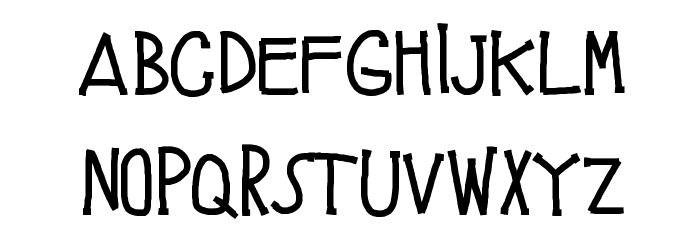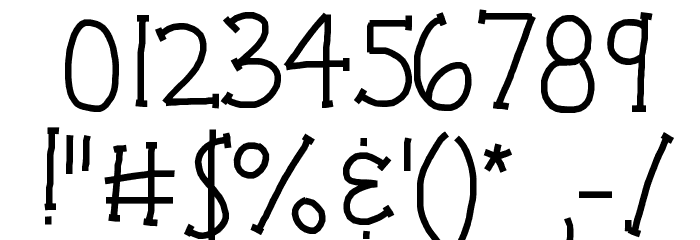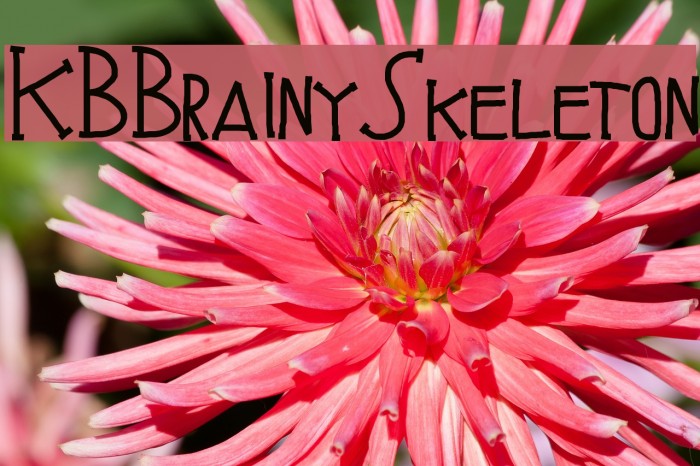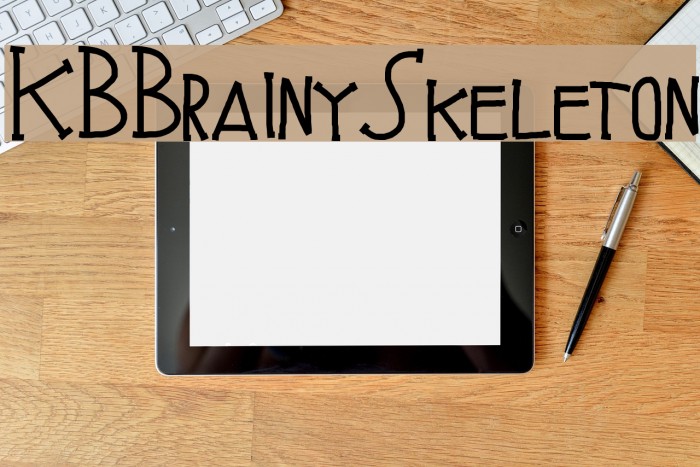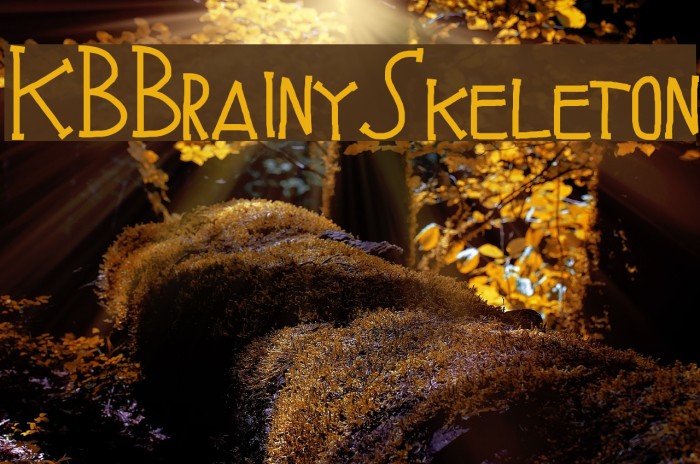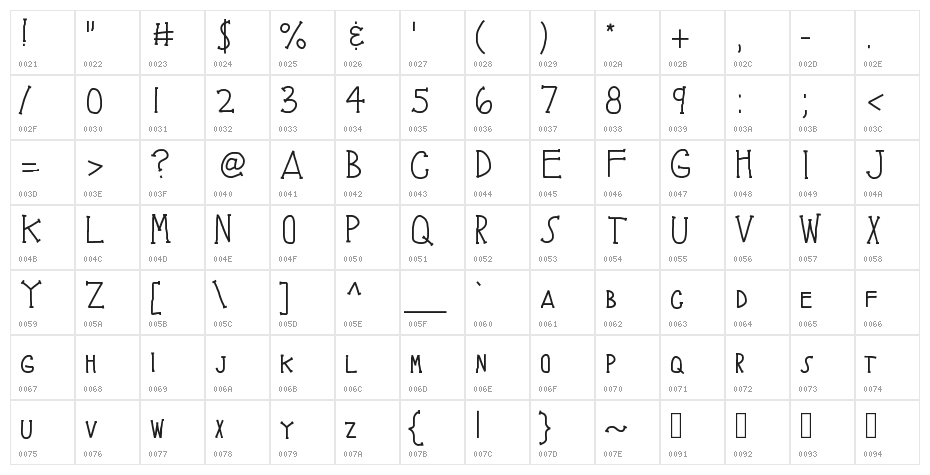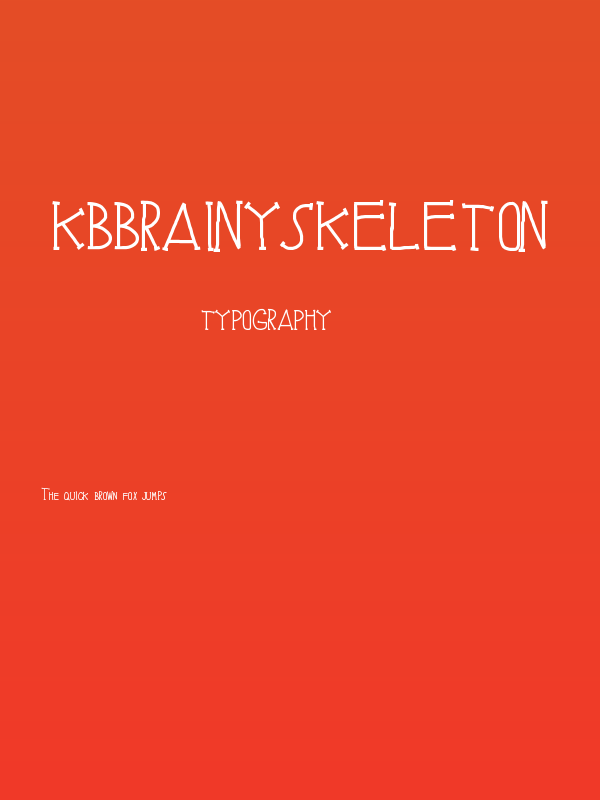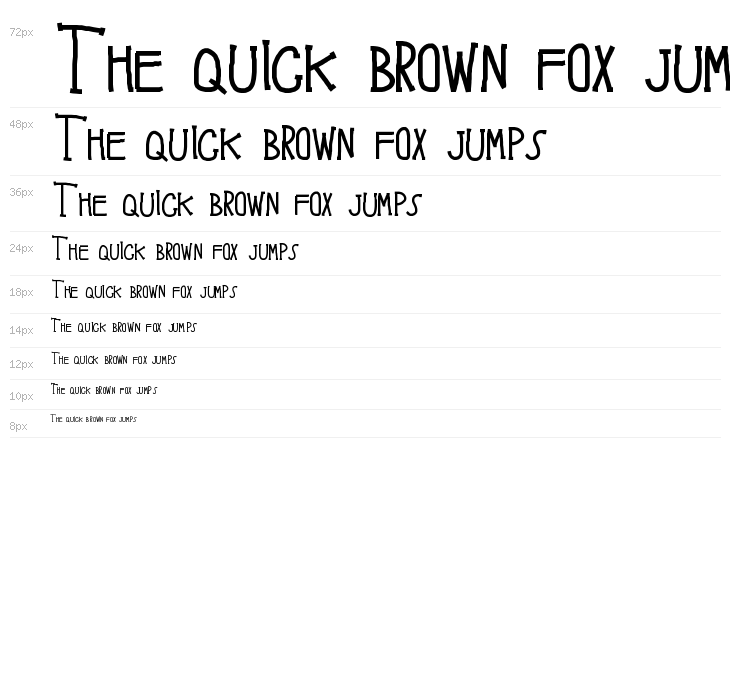
KBBrainySkeleton Font
This font features a playful and quirky design with uneven strokes and a hand-drawn appearance. The characters are tall and slightly narrow, giving them a unique and whimsical look. The uppercase letters are bold and prominent, while the lowercase letters maintain a consistent style with a slightly more compact form. Numbers and special characters follow the same playful aesthetic, making the font suitable for creative and informal projects. The overall style is reminiscent of a skeleton or stick figure, adding a fun and lighthearted touch to any text.
A playful, hand-drawn font with a quirky, skeleton-like design.
- Proposed Projects: Ideal for children's books, Halloween-themed designs, comic strips, and playful branding.